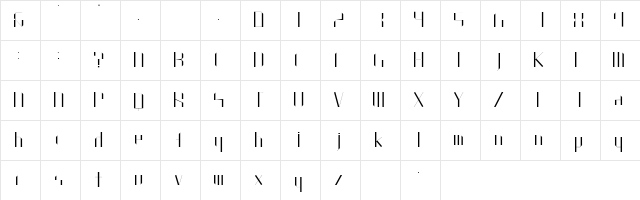
Complete Plain Medium glyph index. Displaying only characters natively supported by Plain Medium font.
Plain is a composed and adaptable typeface that performs quietly and consistently across a wide range of design contexts.